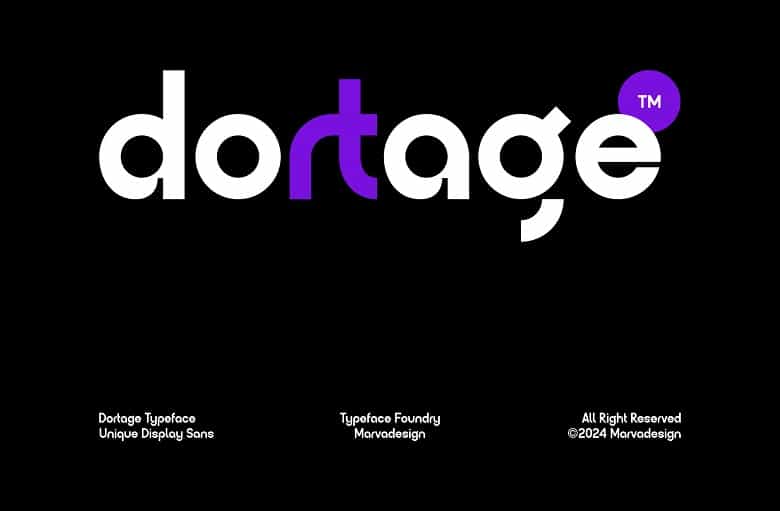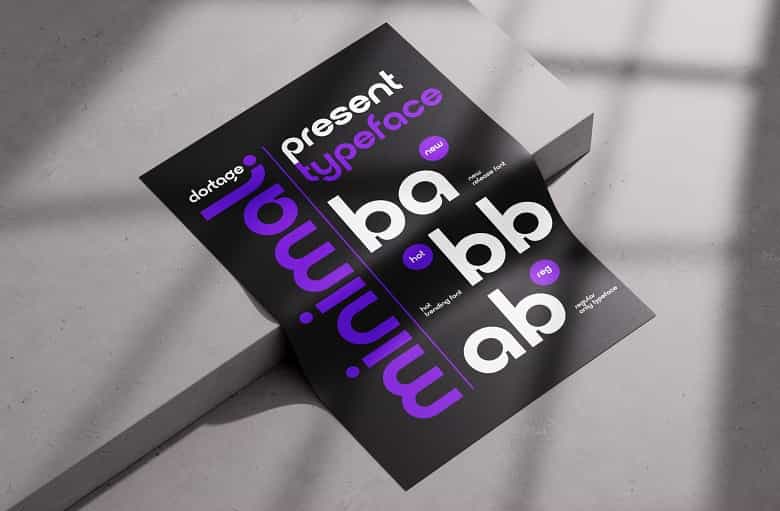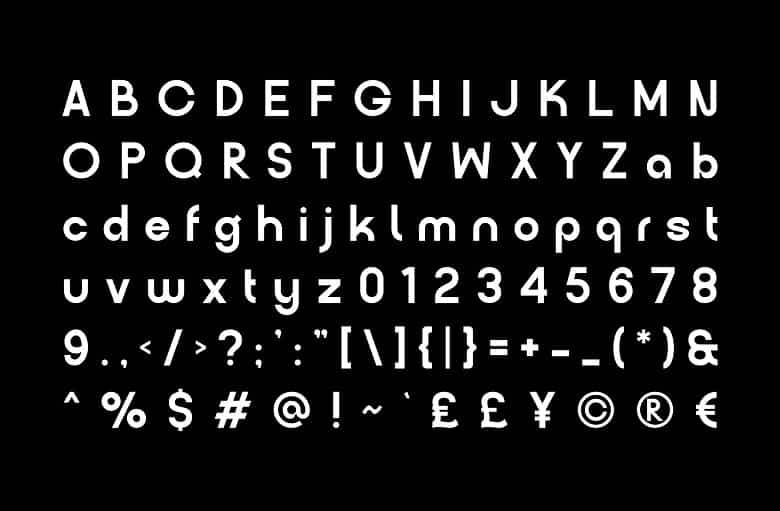
Dortage is a display sans font which is designed to create clean and minimal look in the designs. Because of its simplicity and elegance it is ideal for logos, branding, posters, and magazines. As the design of this type of car is characterized by smooth lines and an optimal size,